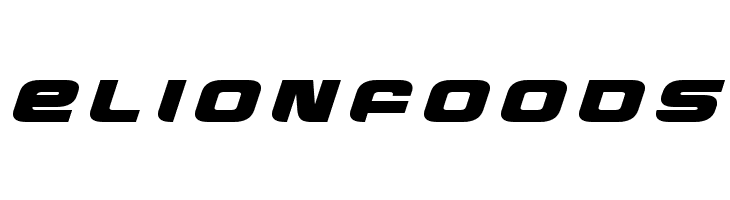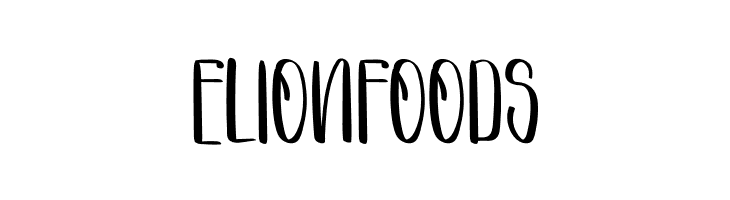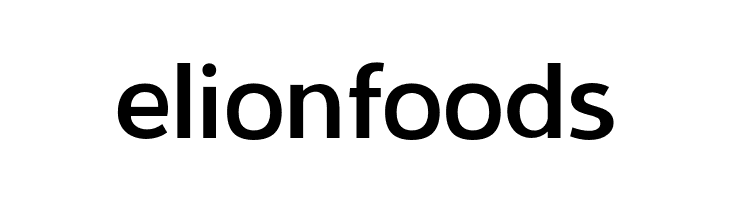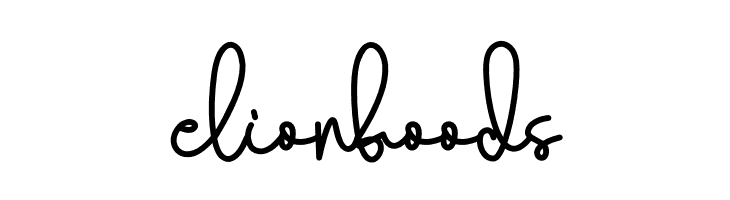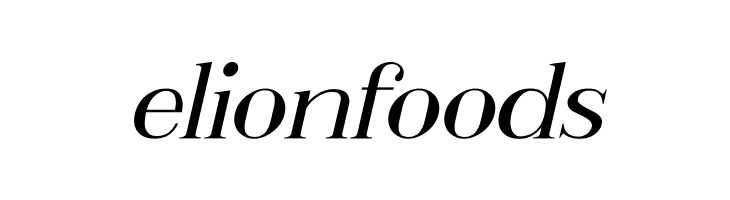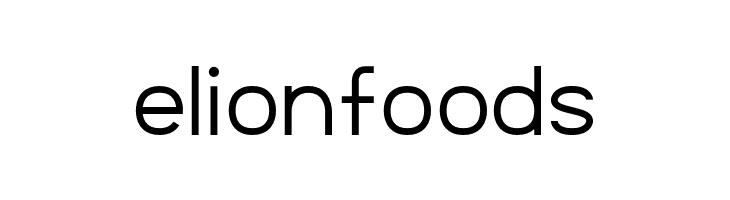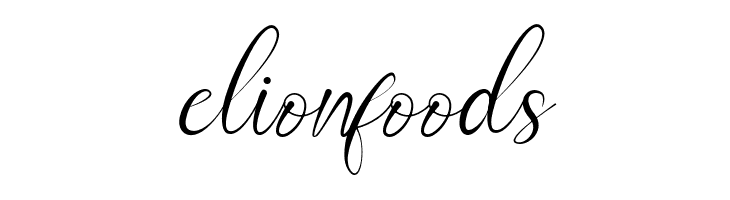
A bold, italic font with a modern and dynamic style.
A playful, hand-drawn font with tall, narrow letters and a whimsical style.
A modern sans-serif font with a semi-bold weight, offering clarity and professionalism.
A playful, handwritten script font with consistent loops and a casual aesthetic.
An elegant italic serif font with smooth strokes and moderate contrast.
A modern, elegant script font with fluid, handwritten strokes.
A modern, light sans-serif font with geometric precision and minimalist style.
A bold, hand-drawn font with a dynamic, graffiti-like style.
An elegant, flowing script font with high contrast and graceful curves.
An elegant script font with flowing, interconnected letters and ornate flourishes.